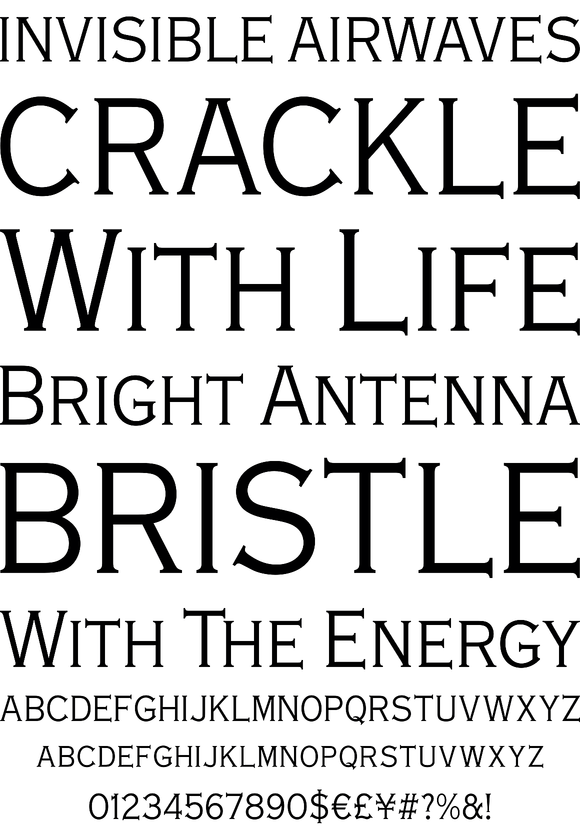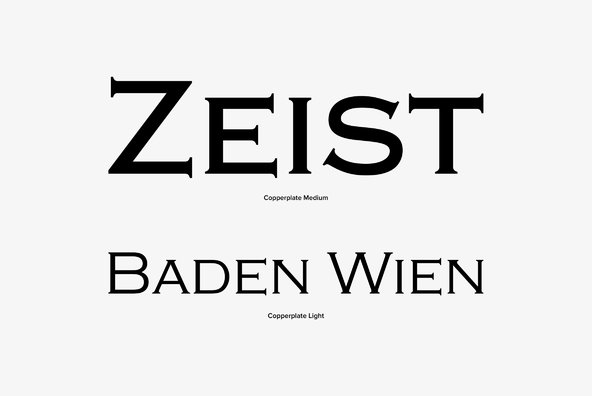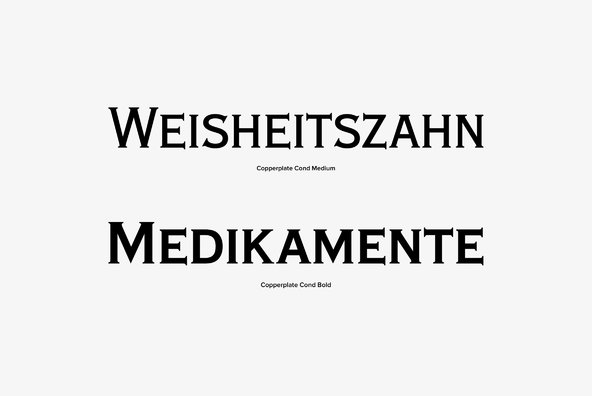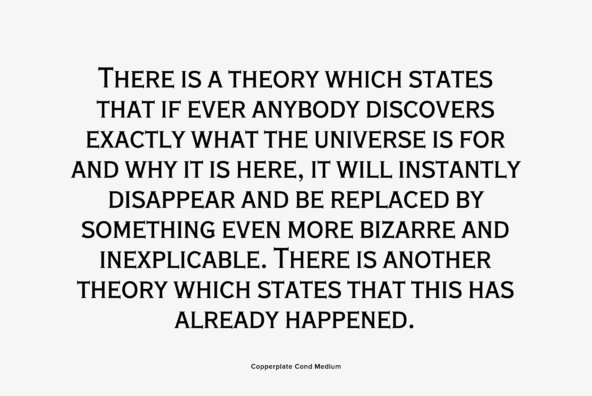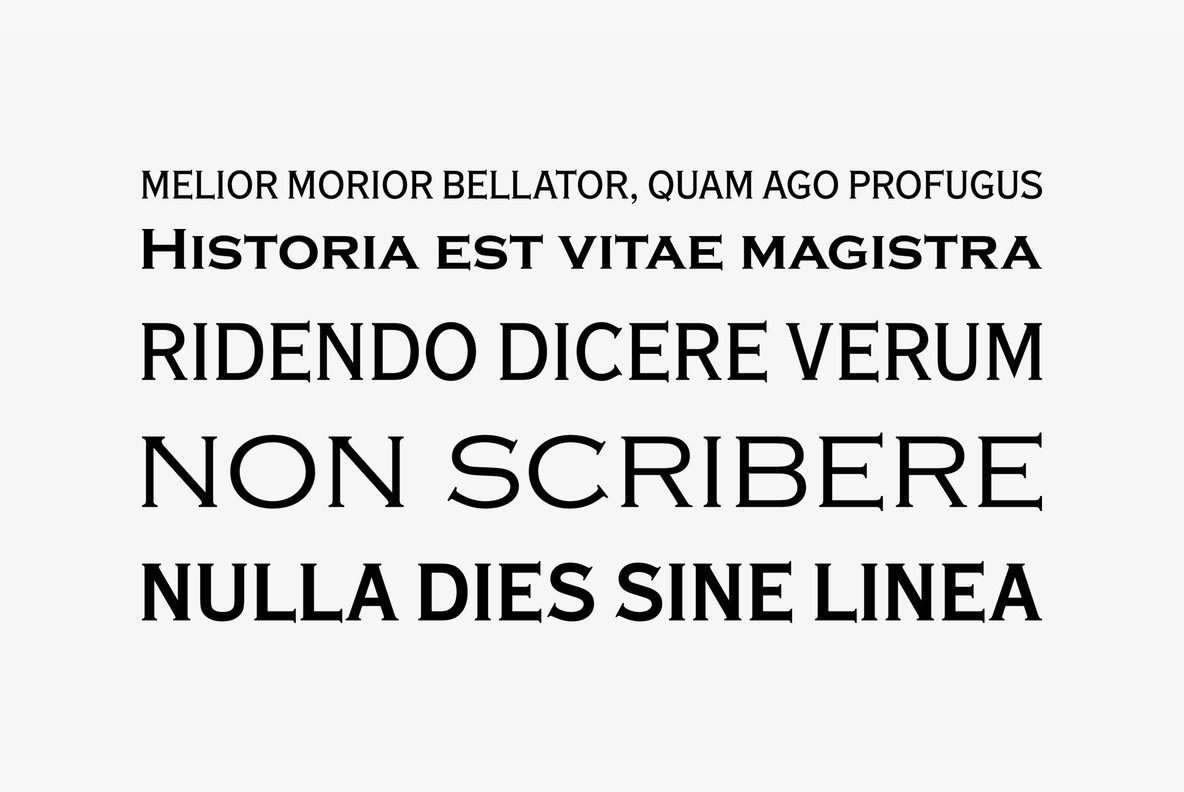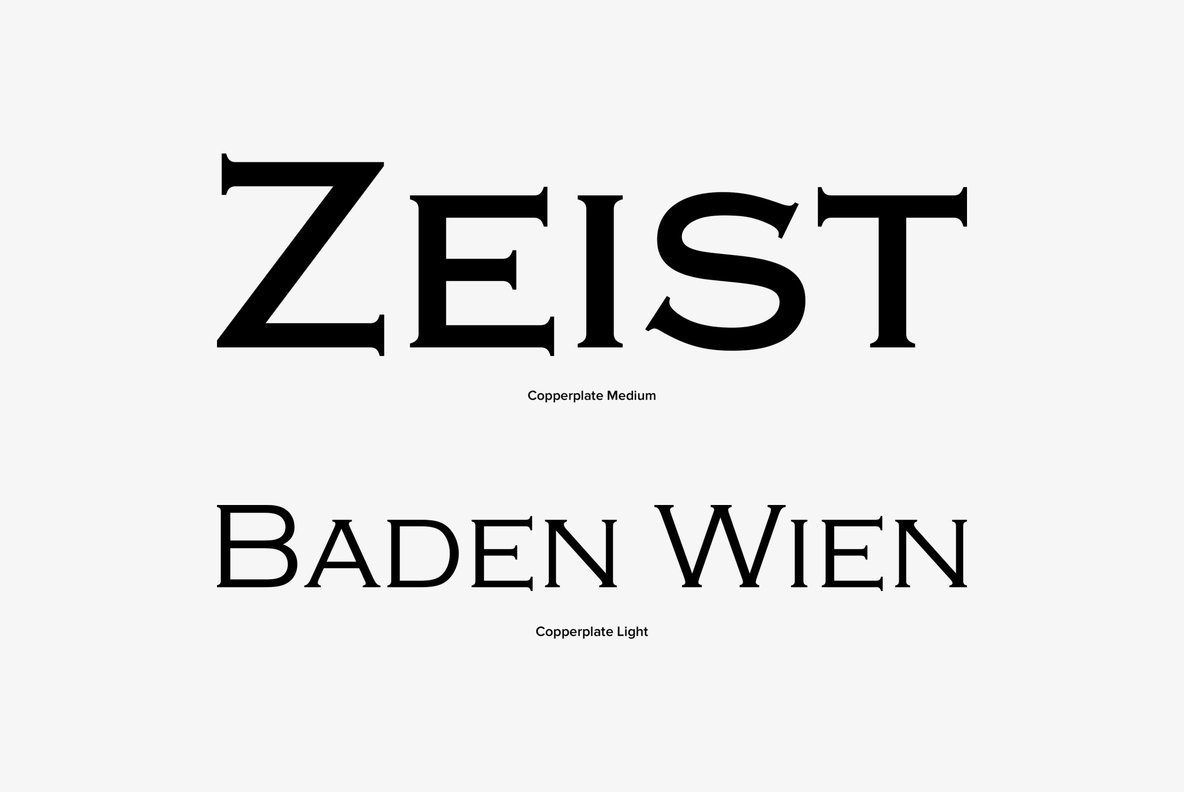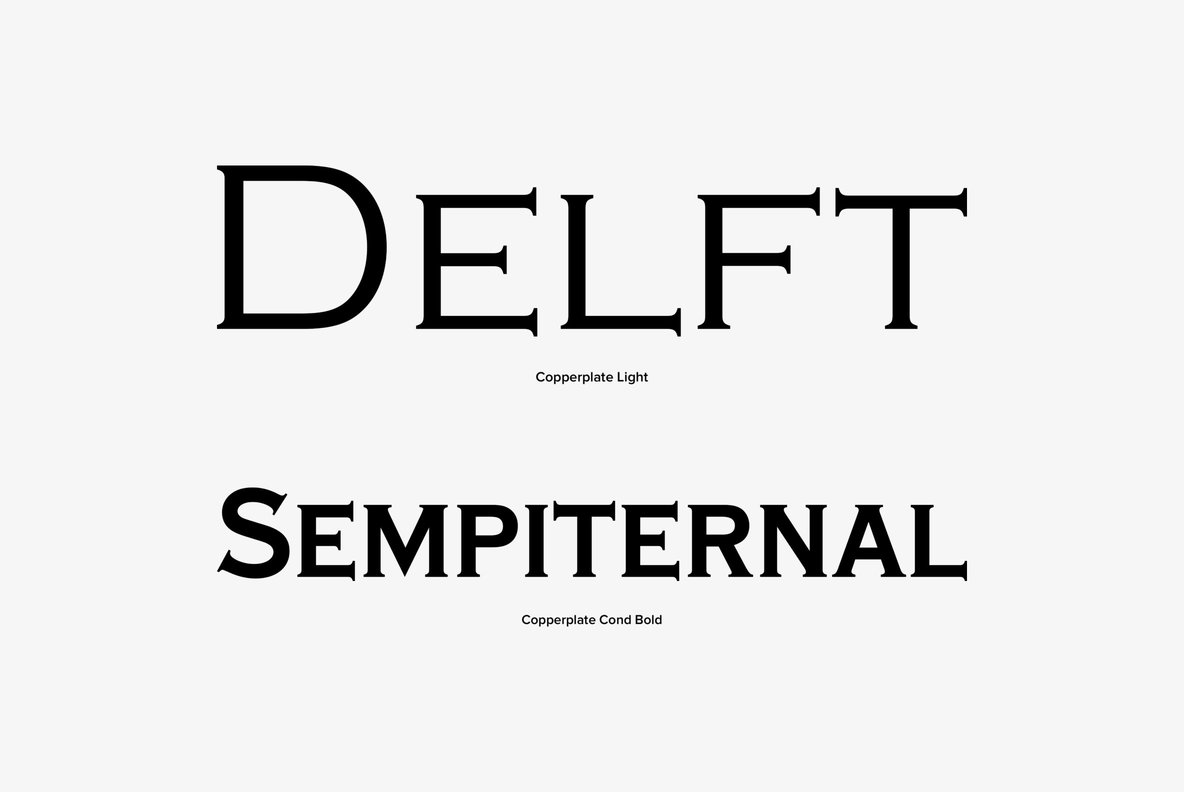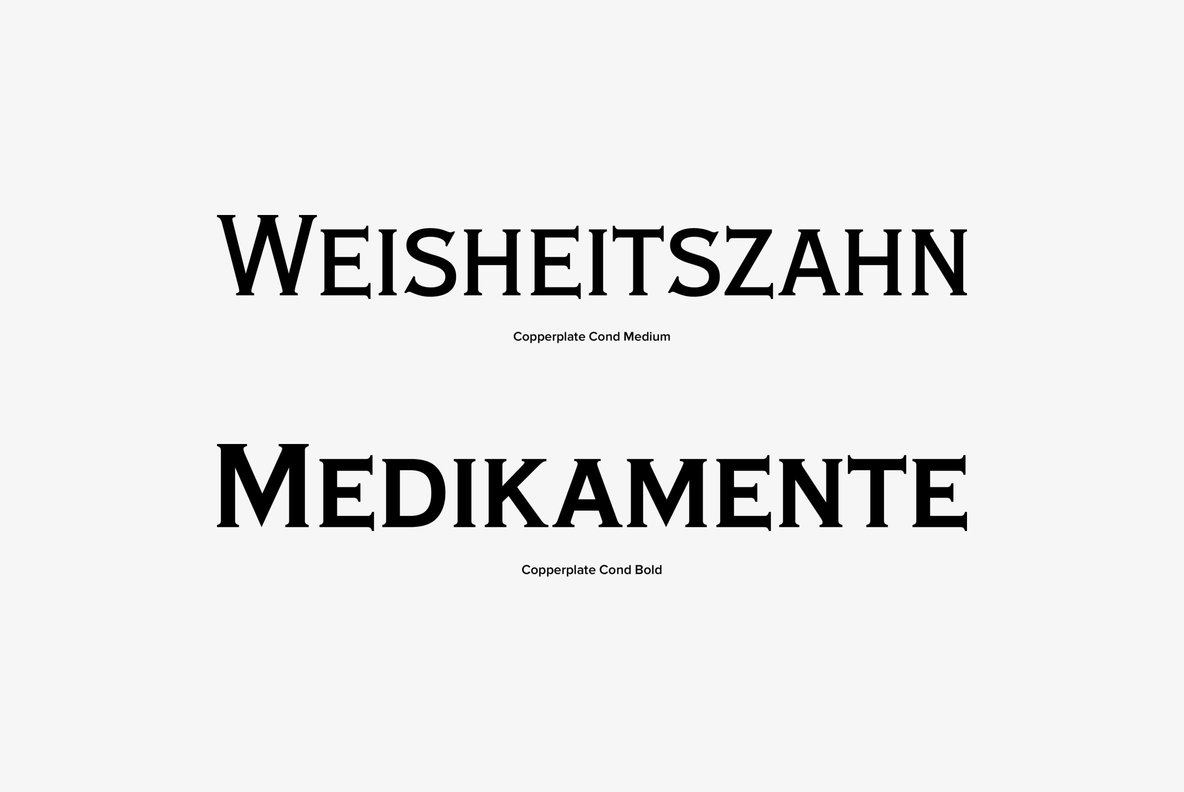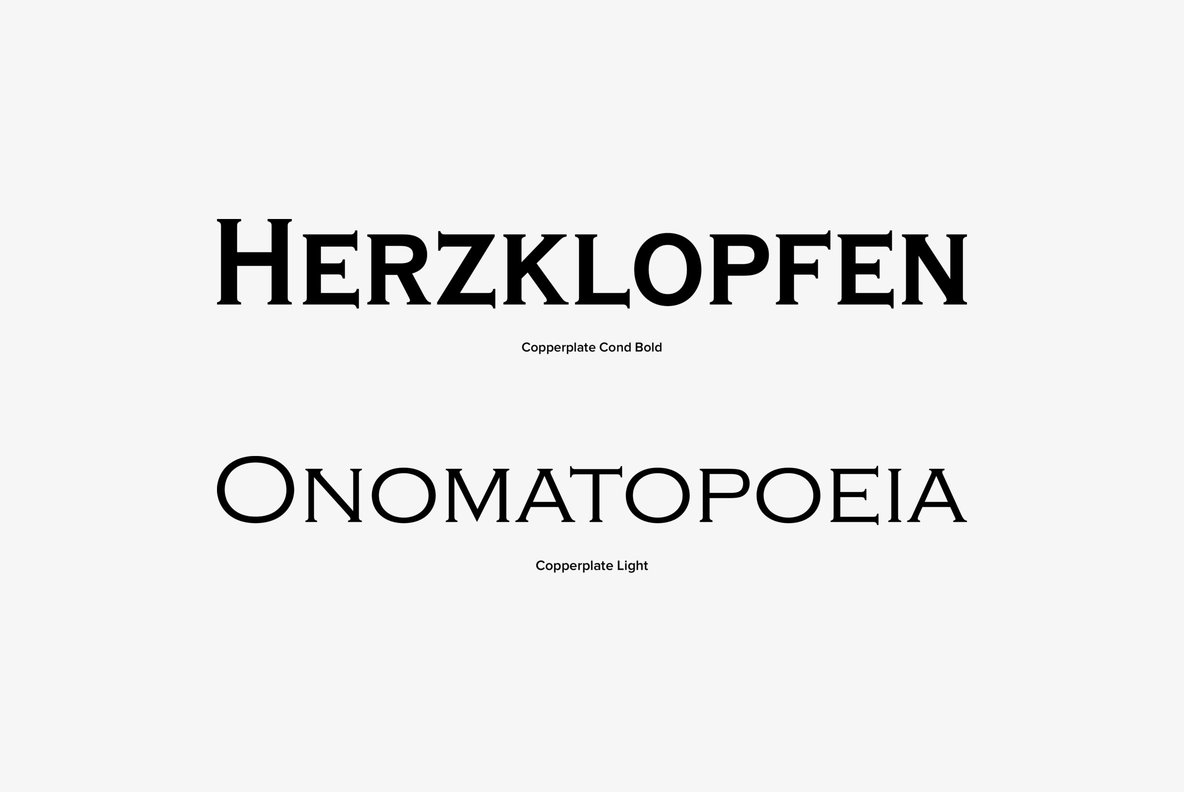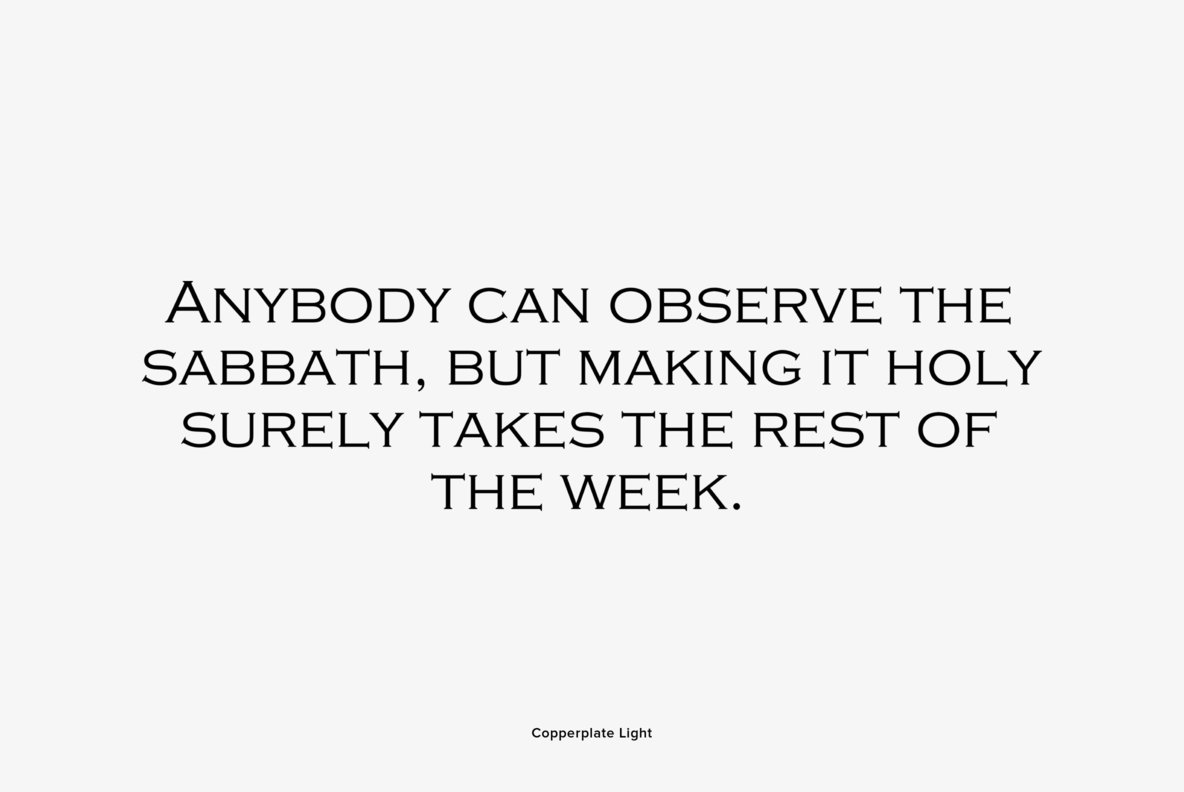
Copperplate
Designed by Frederic William Goudy in 1905, Copperplate is a decorative serif font release by URW. Contains language support for West, East, Turkish, Baltic, and Romanian.